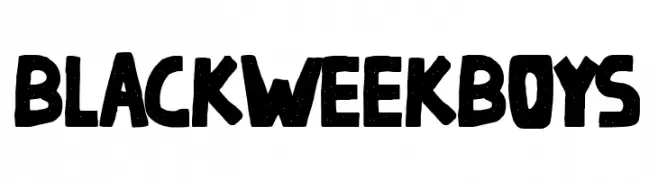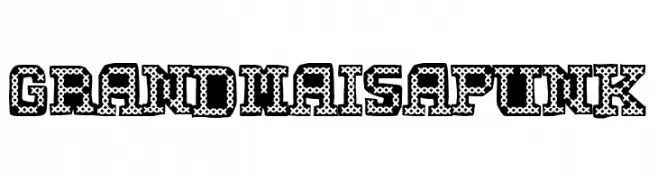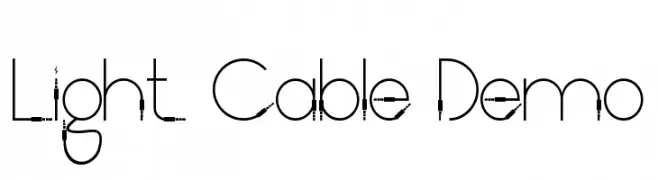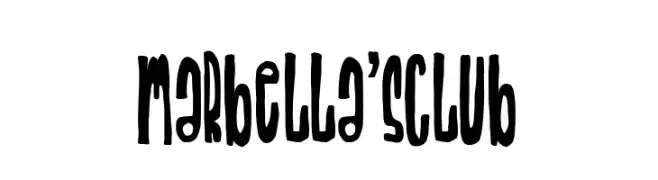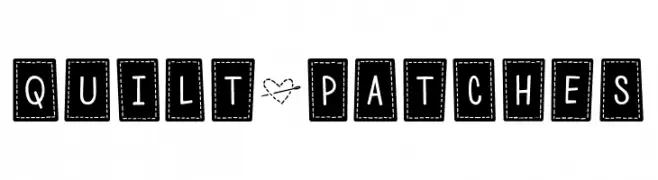
A bold, playful font with elongated, irregular letterforms and a whimsical, artistic style.
A playful, patchwork-style font with dotted borders and a handcrafted feel.
A modern, geometric font with thin lines and a sleek, futuristic design.
A bold, playful font with a hand-drawn, whimsical style and uneven strokes.
A bold, decorative font with a punk-inspired cross pattern.
A bold, distressed font with a vintage, hand-crafted look.
A playful, decorative font with cartoon-like patterns and bold characters.
A bold, 3D font with interconnected characters and a shadow effect.
A modern, geometric font with sharp angles and horizontal lines.
A bold, 3D decorative font with a vintage, textured style.